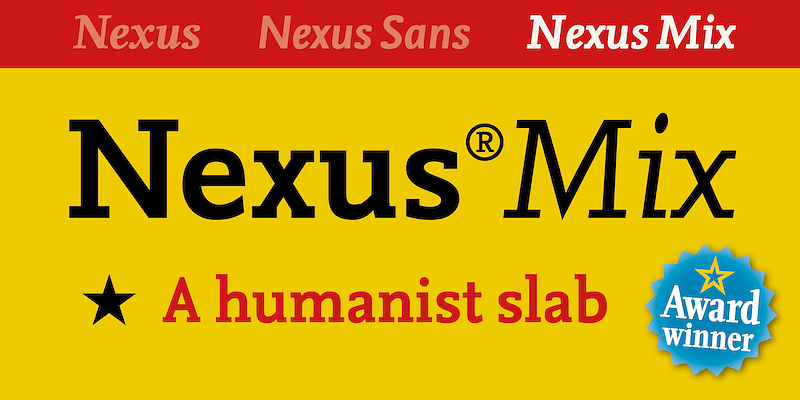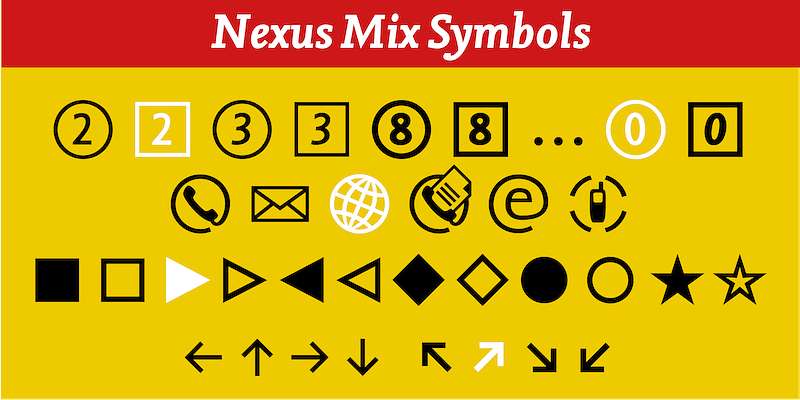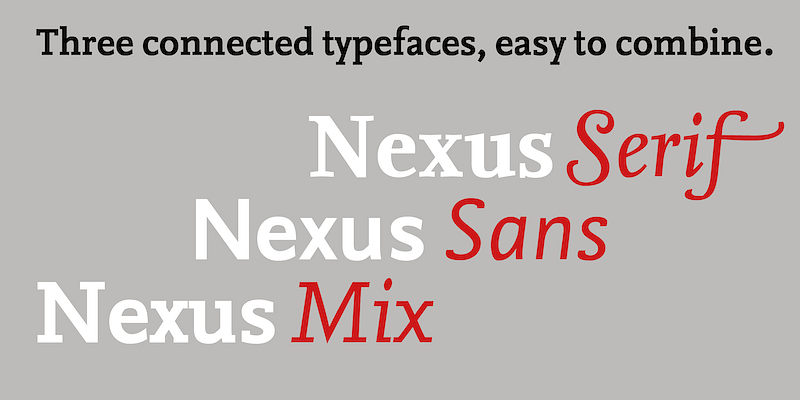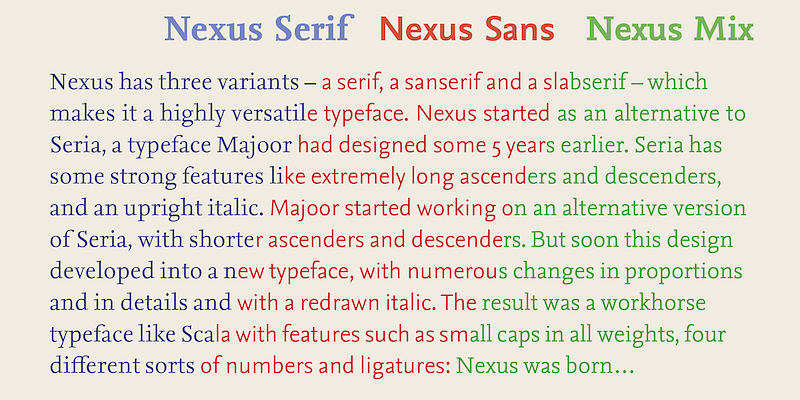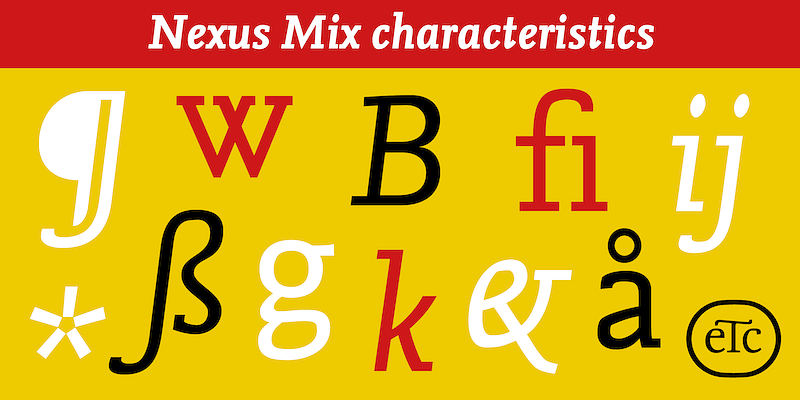
Nexus: a family of ‘connected’ typefaces
Nexus® is an extensive family of three ‘connected’ typefaces, partly based on Majoor’s Seria, but conceived much more as a workhorse typeface. The starting point was Nexus Serif. From this, a sans serif version was derived: Nexus Sans. A third member then followed, a slab-serif-like design called Nexus Mix, in turn derived from the sans.
Nexus Typewriter is a useful corporate monospaced font, including old style figures, a true italic, and a bold italic.
Nexus Serif Italic comes with two series of elegant swash capitals, with lowercase swashes available in both long and short end-swash versions. It also includes a range of special characters, such as squares, circles, stars, and arrows, in both solid and outline versions.
In 2006, the Nexus family was awarded first prize at the Creative Review Type Design Awards in London, in the Text Families category.
Martin Majoor
In 2021 Martin Majoor launched an independent type foundry under his own name. Majoor is known for his award-winning typefaces (Scala, Seria, Nexus) that were originally published by Fontshop. His Scala and Scala Sans are considered ‘classics’ and are among the first digital typefaces. In collaboration with Jos Buivenga he designed the large and successful Questa family. In his latest typeface ‘Comma Base’, he explores the basic shapes of a typeface, with both typical sans features and at the same time serif elements. It can be seen as a typeface featuring the best of both worlds. Comma Base is the first typeface to be released by his own foundry.